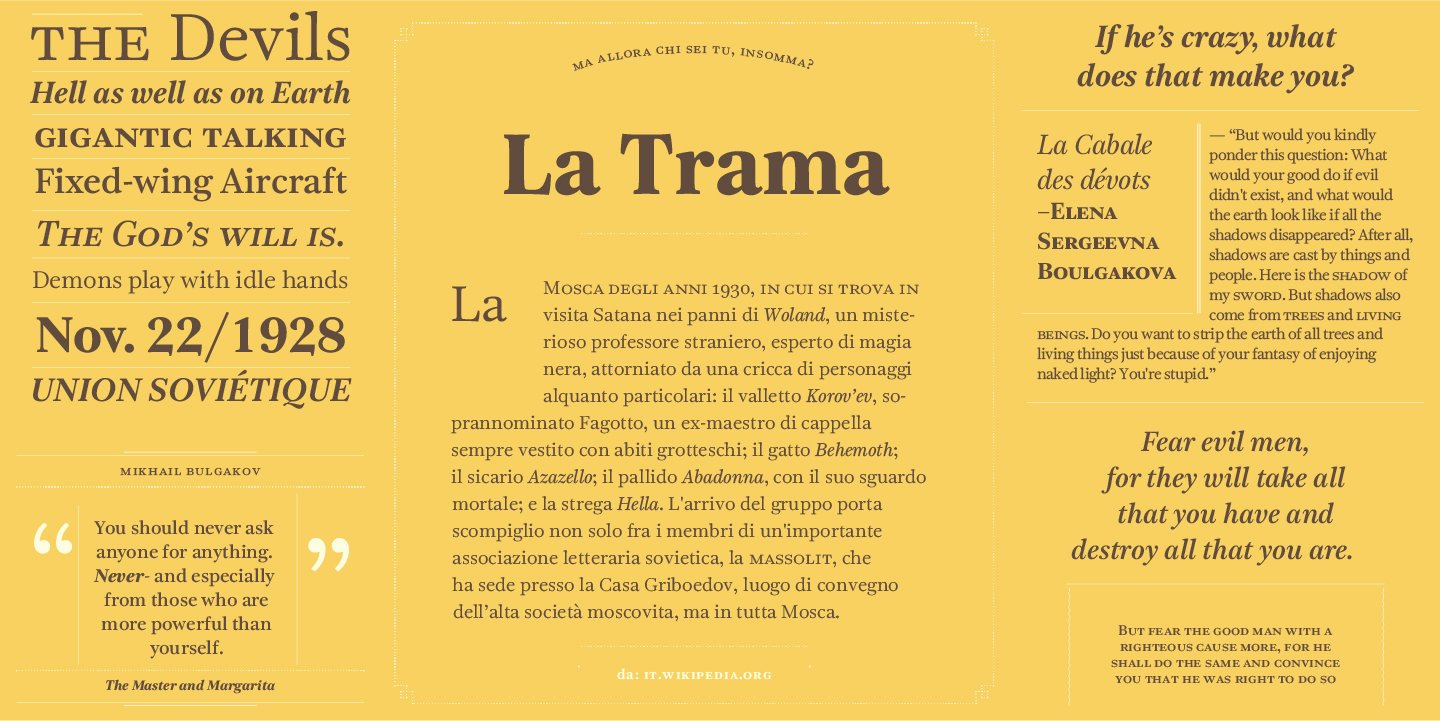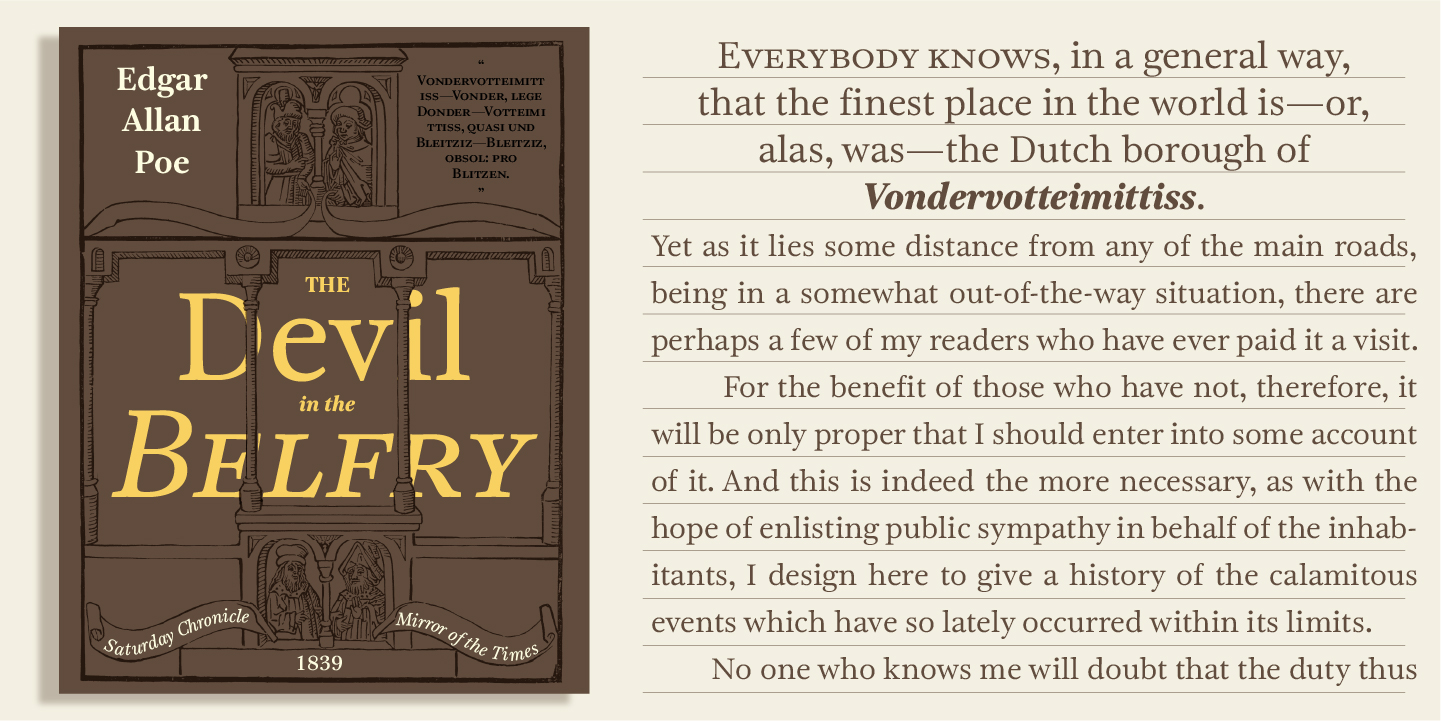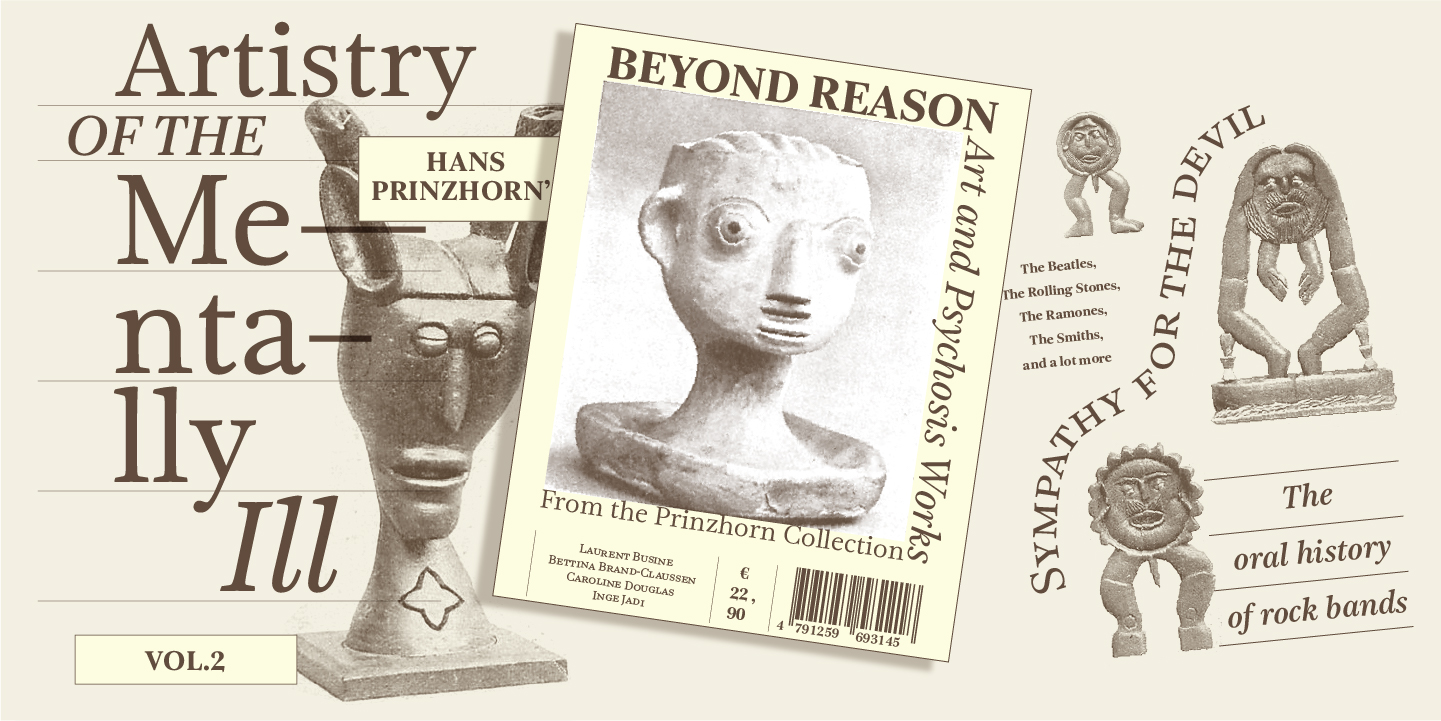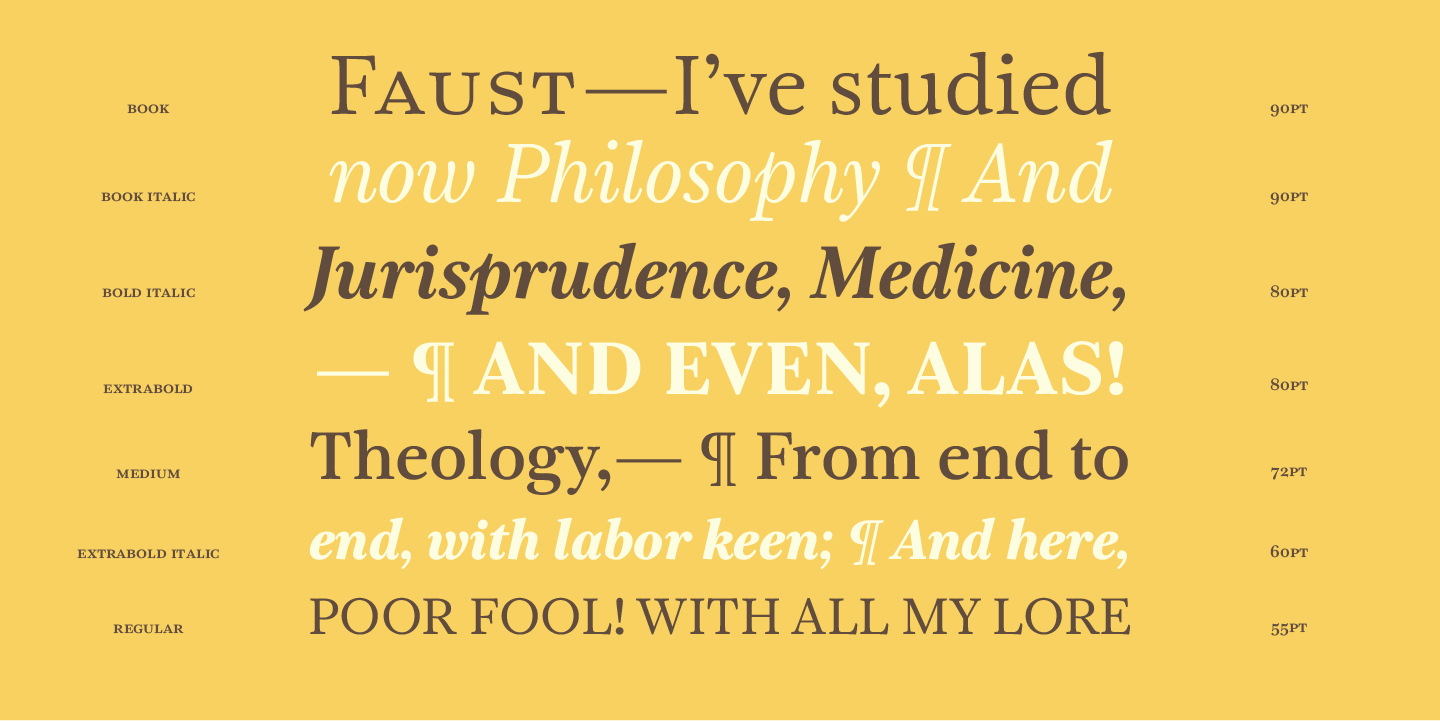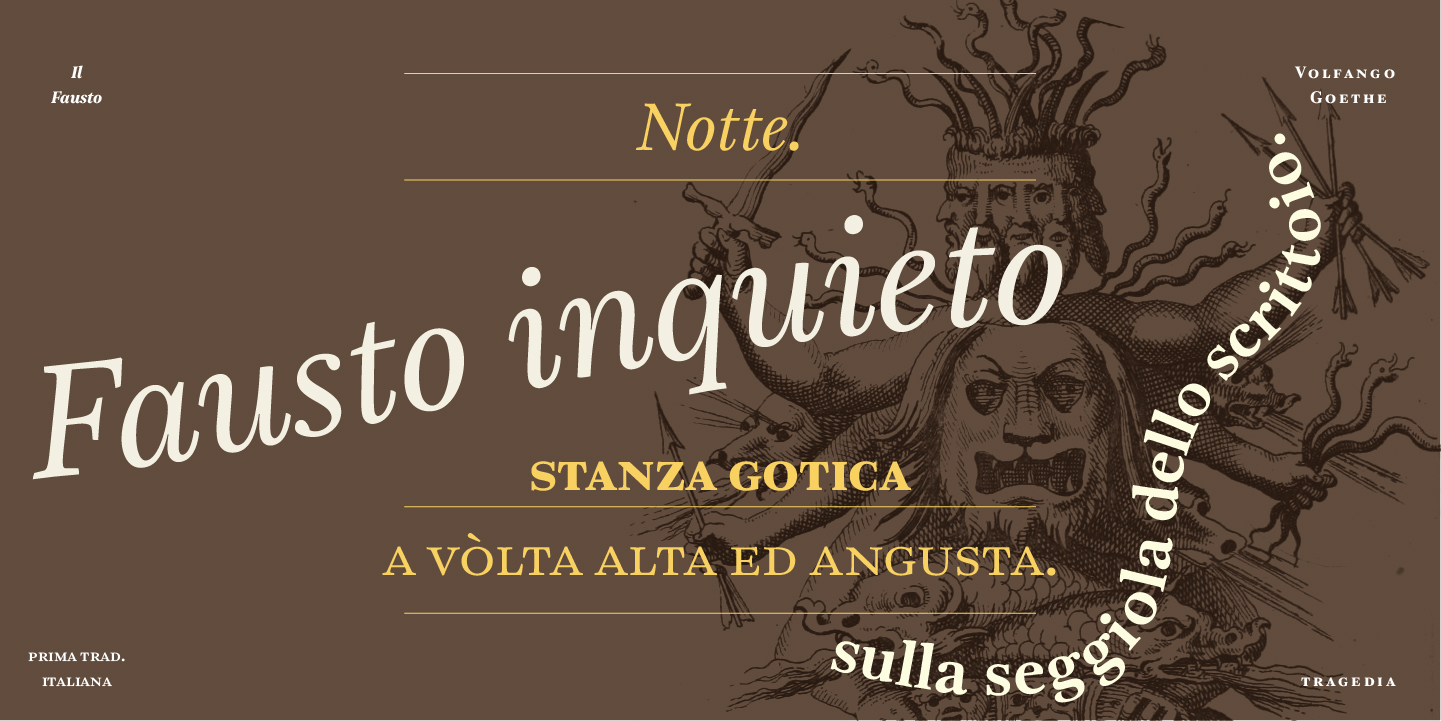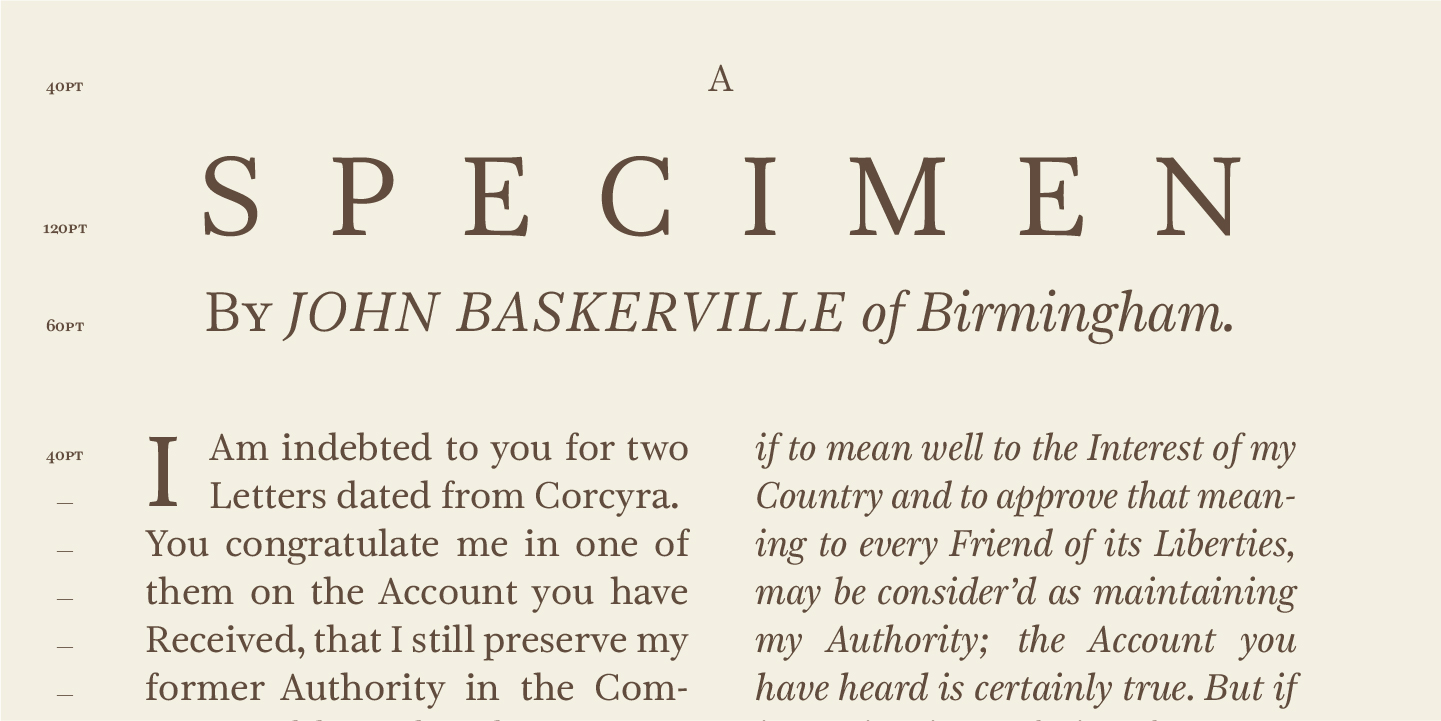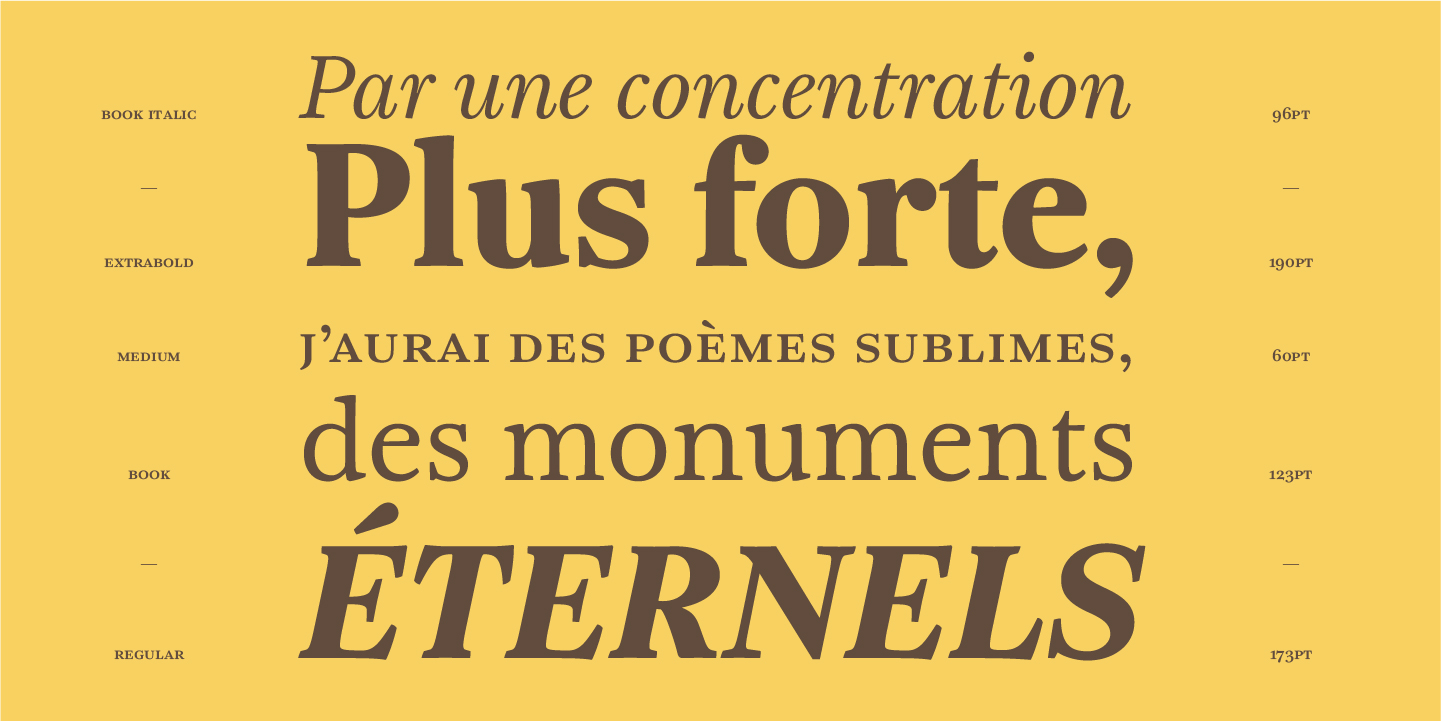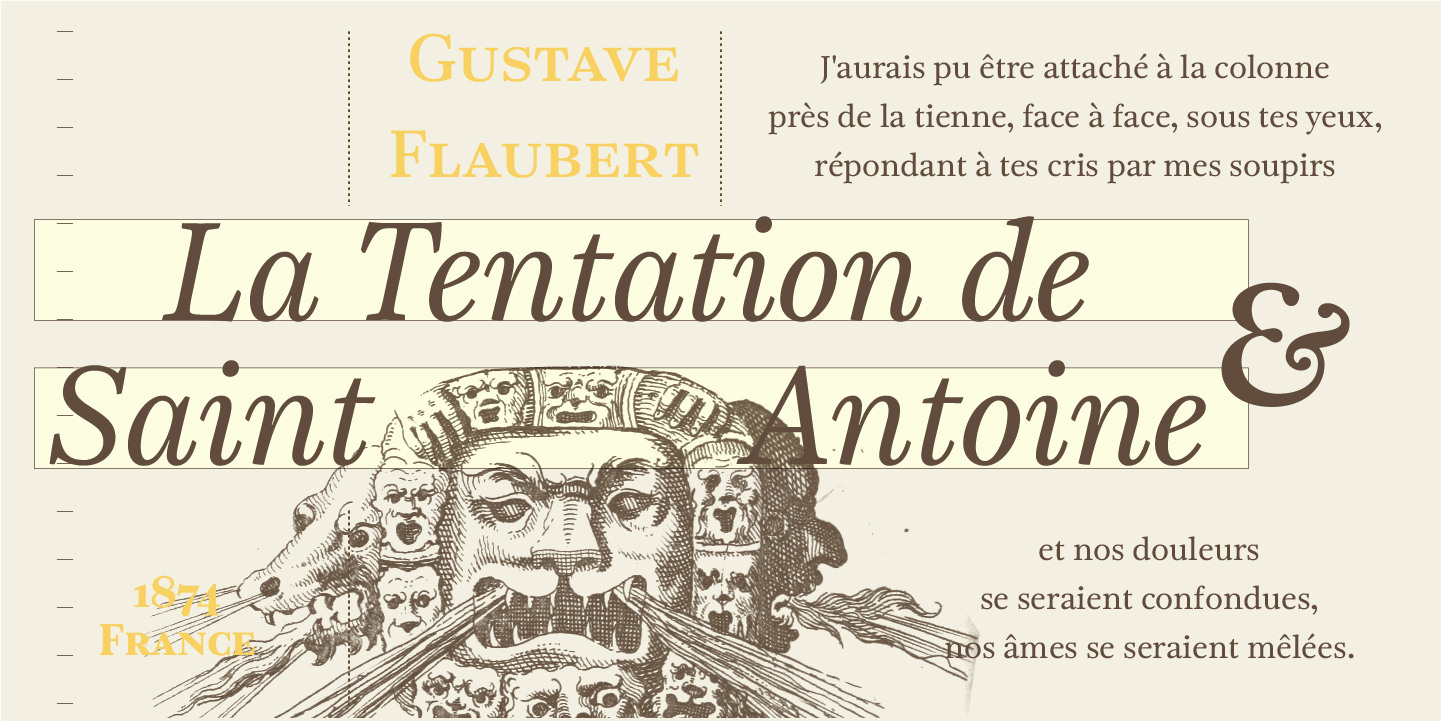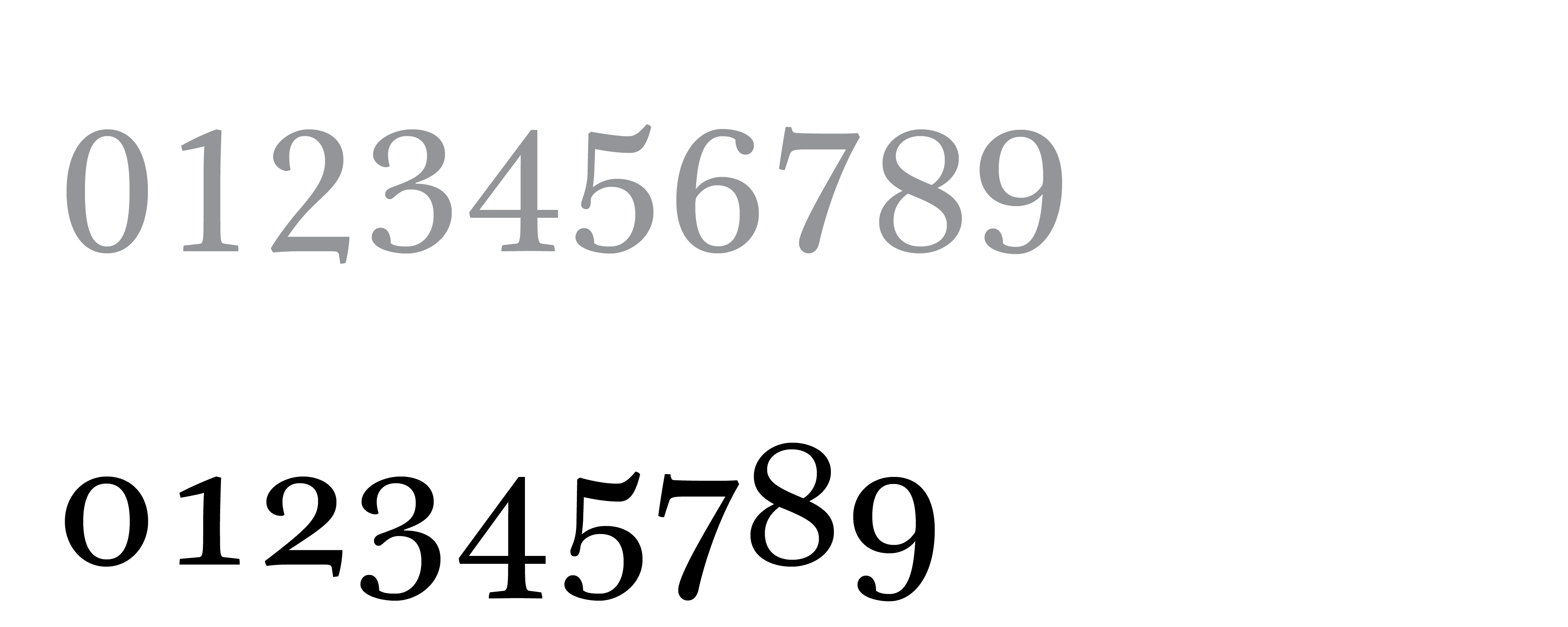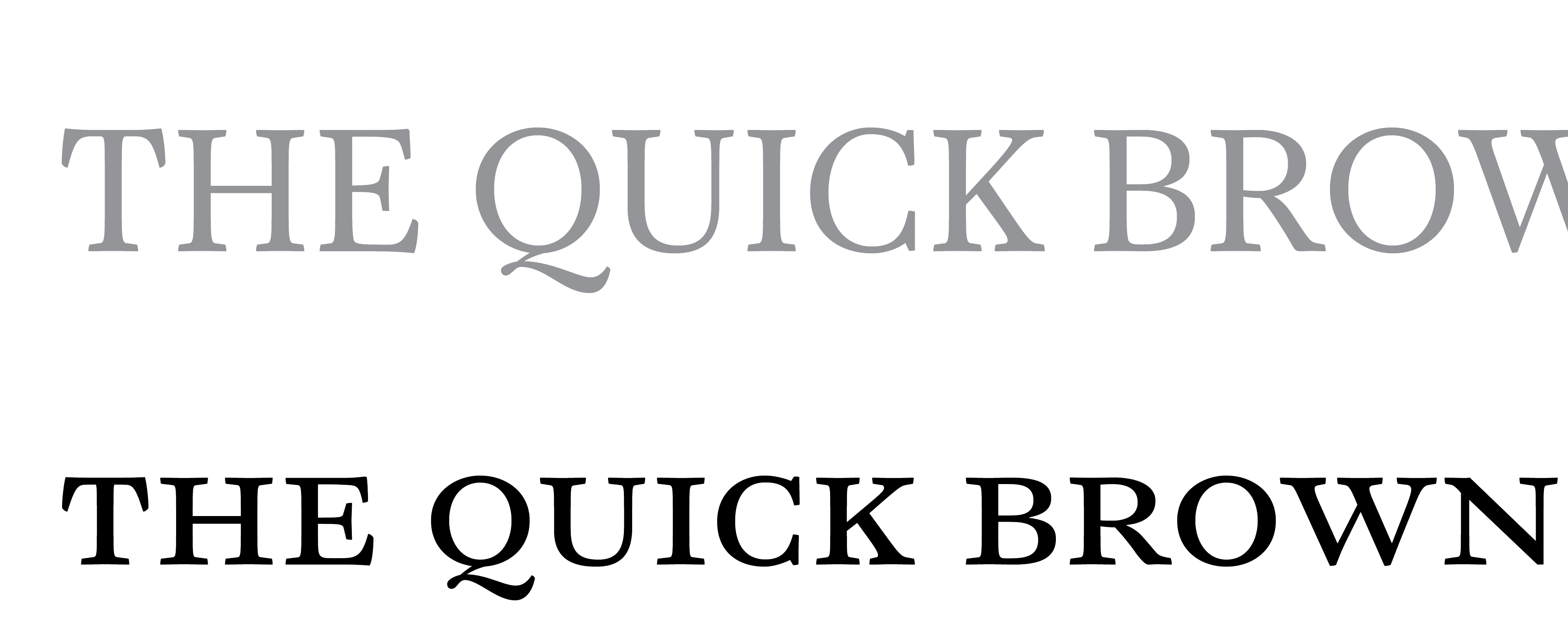
Voland
Voland is a seriffed typeface designed for use in books and magazines. Originally created for the independent Voland publishing house in 2010, Voland is now available with a brand new character set.
Inspiration for the regular weights of Voland came from John Baskerville’s Double Pica in his famous 1757 type specimen. Though a close imitation of the original letterforms was intentionally avoided, the appearance of the original metal type has been translated into a digital typeface for contemporary use.
Luciano Perondi
One of Voland’s most distinctive features is the elegant ‘fox-like’ tail of letter Q. While Baskerville’s original type featured generous proportions and open counters, Voland emphasises these features and increases the x-height. Of particular note is Voland’s reduced thick/thin contrast. Indeed, the thickness of the strokes and the colour of Voland Book on the page are similar to those of Simoncini Garamond, which set a standard in Italian publishing in the 1960s and is slightly lighter than the most popular book faces used in Europe today. Thanks to its low contrast, Voland gives the page a more even colour at text sizes, which improves reading comfort.
Voland and its matching italics are timeless text faces. It is available in five weights, ranging from Book to ExtraBold, and comes with additional features such as small caps in all weights.
Book, Book Italic, Regular, Regular Italic, Medium, Medium Italic, Bold, Bold Italic, ExtraBold, ExtraBold Italic
Tabular Figures
Oldstyle Figures
Tabular Oldstyle Figures
Small Caps